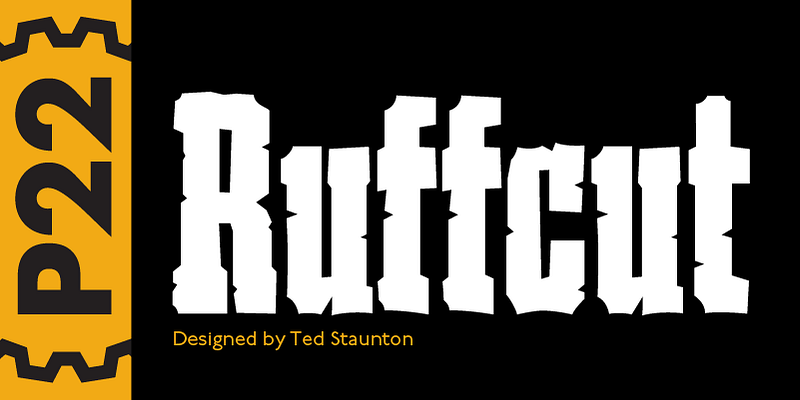
P22 Ruffcut Font Free Download is a unique and expressive typeface that combines rough, hand-cut letterforms with a bold, industrial aesthetic. Its rugged, distressed edges make it perfect for projects that need to evoke a raw, edgy vibe, such as posters, logos, album covers, and creative advertising.
The P22 Ruffcut Font stands out with its rough, imperfect design, making it ideal for projects that need to make a strong visual impact. Whether you’re designing for music events, branding campaigns, or products with an urban or industrial feel, this font adds a rebellious and creative touch to your typography.